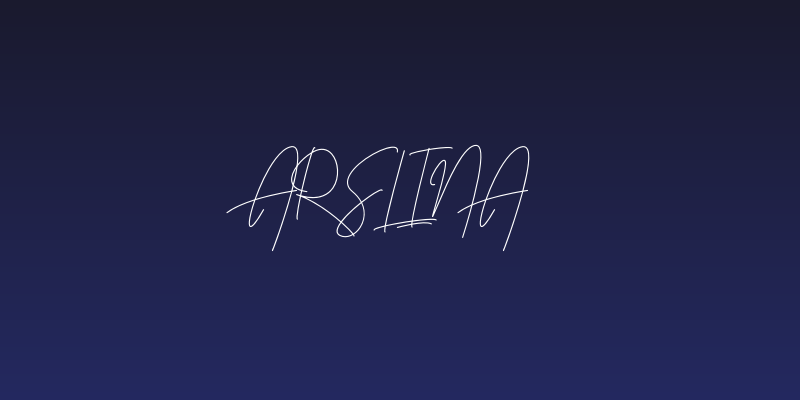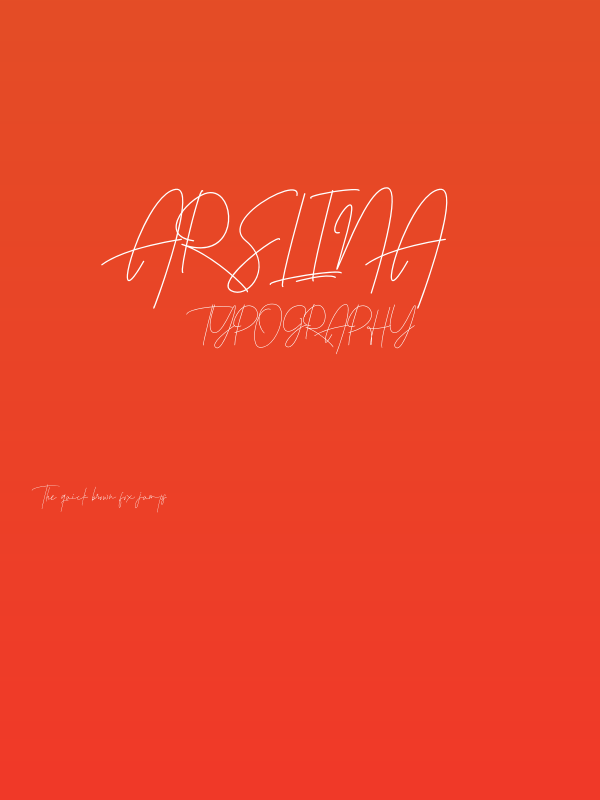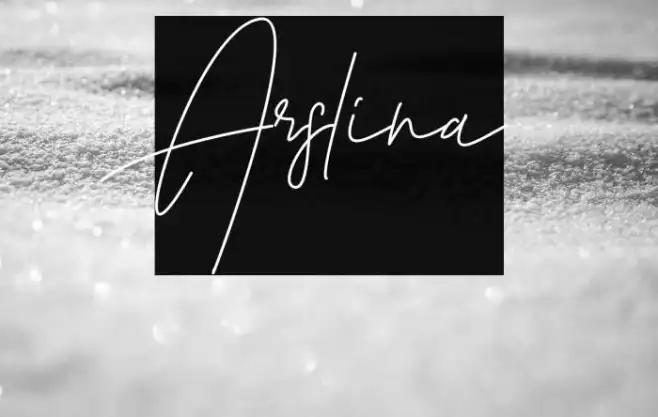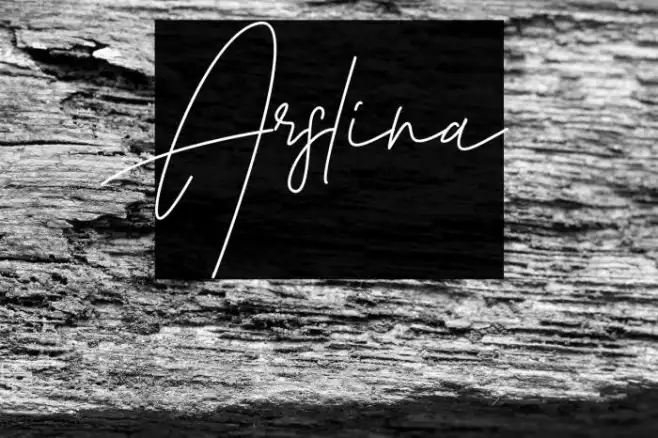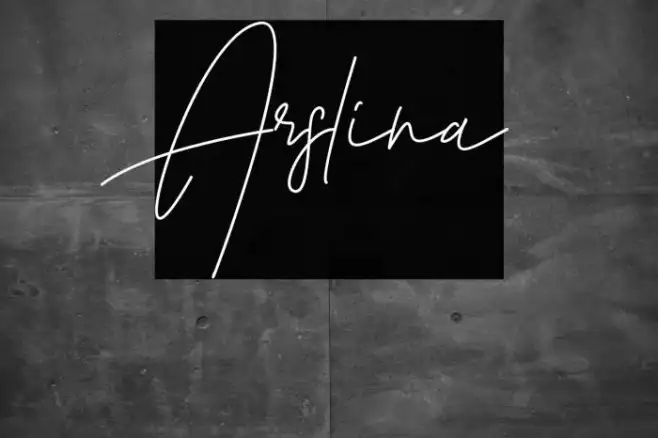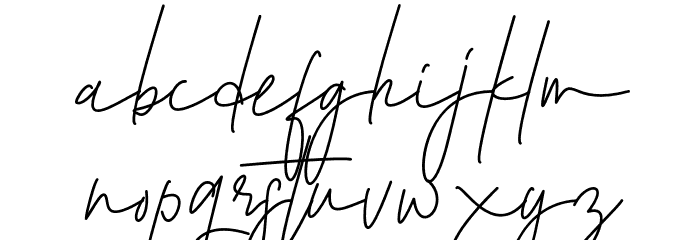
Arslina Font
Arslina Description
This font exudes a modern and elegant handwritten style, characterized by its fluid and cursive strokes. The uppercase letters are tall and slender, with a slight slant that adds a dynamic feel. The lowercase letters maintain a consistent flow, enhancing the script's natural and personal touch. Numbers are clear and legible, complementing the overall aesthetic. Special characters are integrated seamlessly, maintaining the font's cohesive look. The design is perfect for projects that require a personal, yet sophisticated touch.
| Proposed Projects | Ideal for wedding invitations, personal branding, greeting cards, and elegant stationery. |